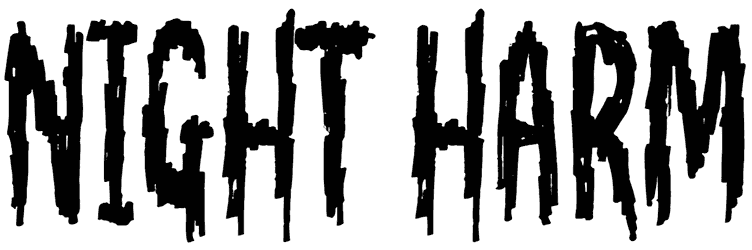
Halloween Kingdom Font
Halloween Kingdom is exactly what you think of when you hear horror fonts. Additional graphic images that have replaced the usual edges in this Halloween font can play the role of decorating your writings.
So whether you’ve just started your journey in the design world or want to refresh your toolbox, we recommend Halloween Kingdom. Because this dripping font gives you a lot of space to create a scary atmosphere in posters, packages, and anywhere that doesn’t need numbers and small letters.